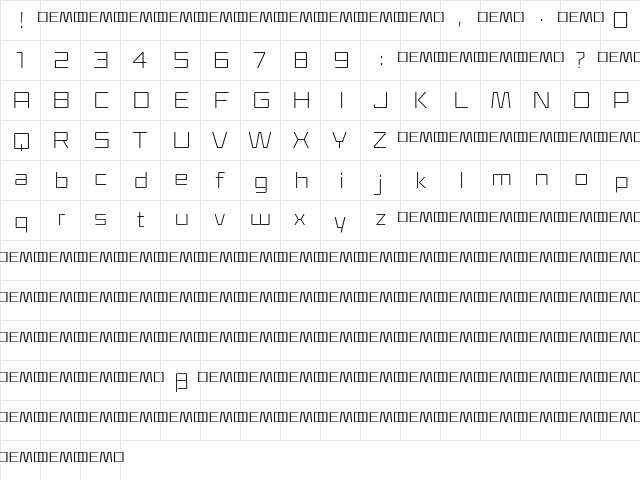
Klapt Light
| Foundry | SevenType |
| Designer | Vitײia Neves |
Design Context for Klapt Typeface
Klapt is a composed and adaptable typeface that performs quietly and consistently across a wide range of design contexts. Its slender proportions lend an understated elegance to any composition.